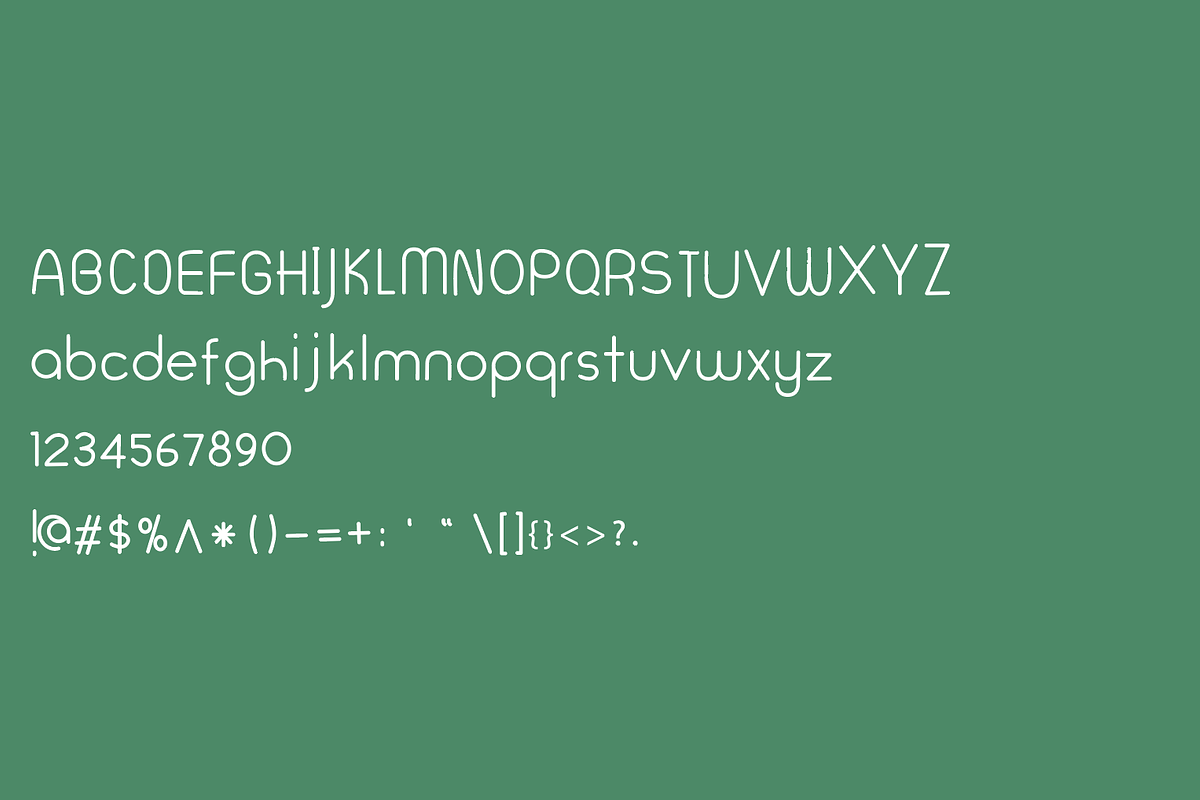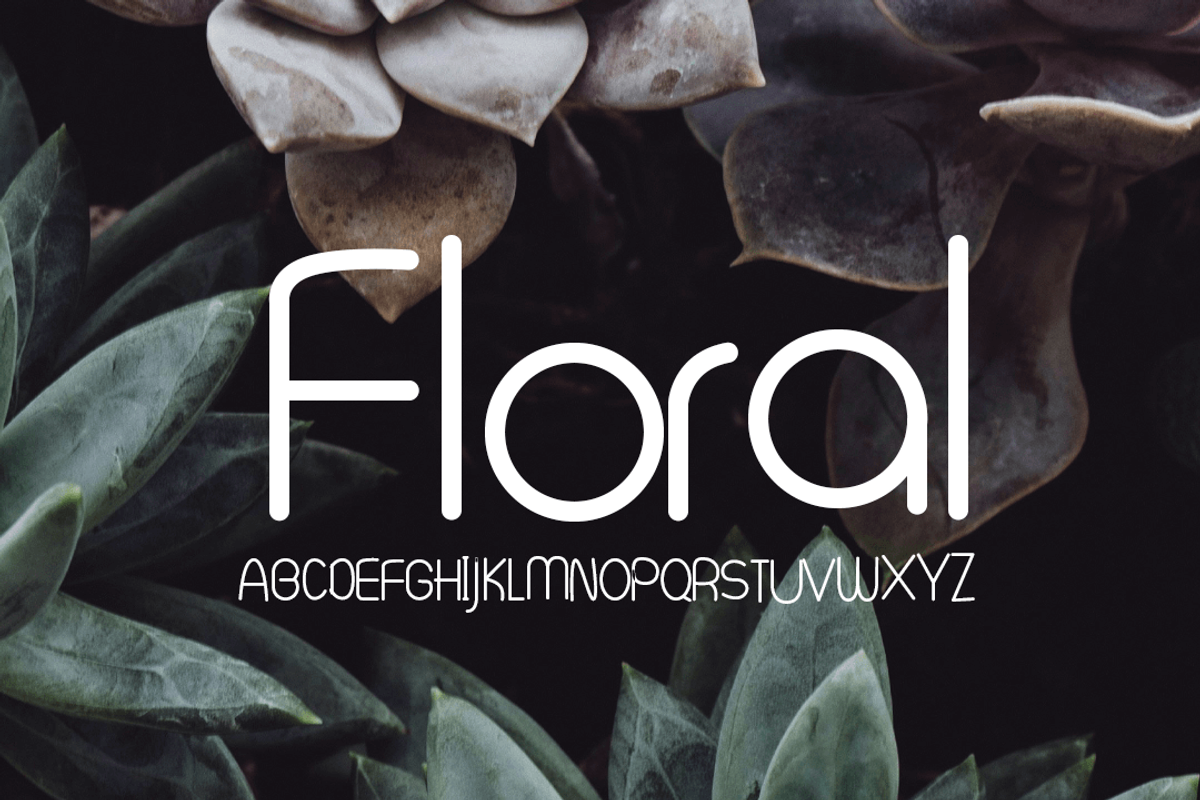
Floral
Floral Font: Fresh, Elegant, and Full of Charm
Capture the essence of nature’s beauty with Floral, a delightful sans serif font inspired by the elegance of blooming flowers. With its smooth curves and natural flow, Floral blends a fresh, casual twist with a clean, modern aesthetic.
Nature-Inspired Elegance: Reflects the charm and grace of floral themes, adding a touch of whimsy to your designs.
Versatile Style: Perfect for branding, invitations, creative projects, and more.
Friendly and Modern: Combines approachability with a polished look, making it ideal for a variety of applications.
Bring a touch of natural beauty to your work with Floral—a font that blooms with creativity and style.